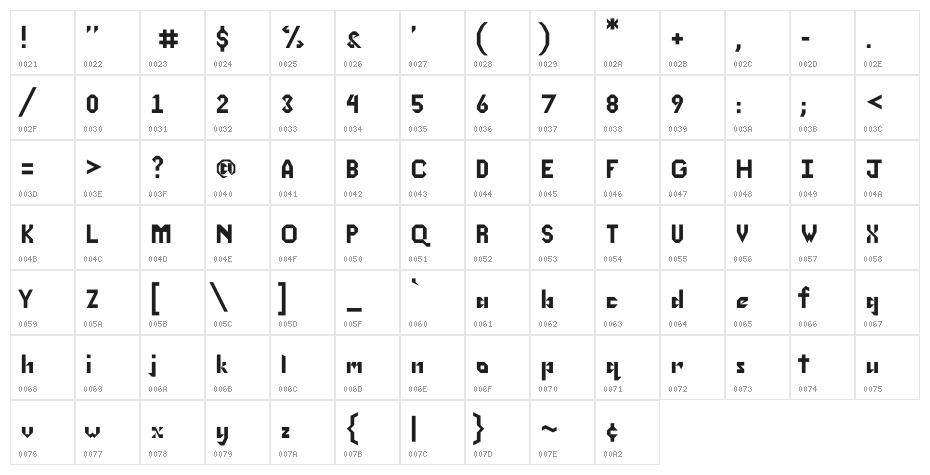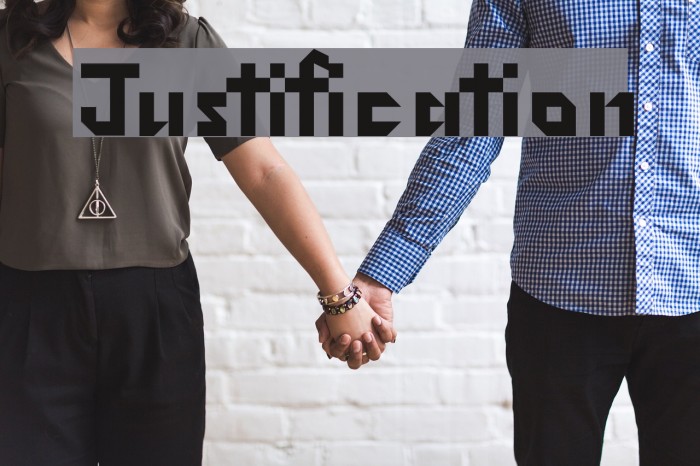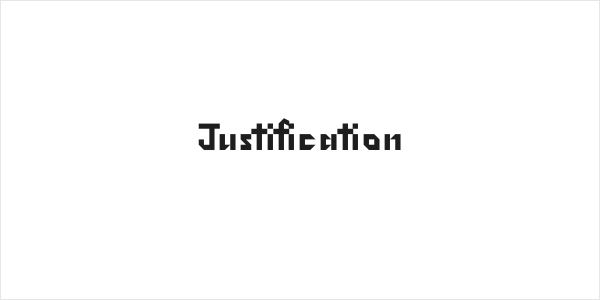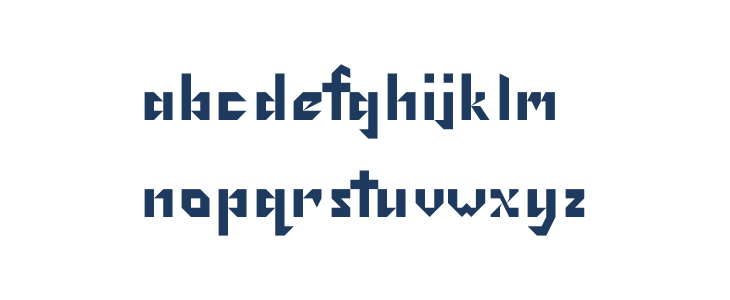
Justification Font
Justification Description
This font features a bold, geometric design with sharp angles and a modern aesthetic. The uppercase letters are particularly striking, with a blocky appearance that commands attention. The lowercase letters maintain the angular theme, offering a cohesive look across the alphabet. Numbers and special characters are crafted with the same boldness, ensuring consistency throughout. The font's unique style makes it suitable for projects that require a strong visual impact, such as branding or poster design. Its distinctiveness is enhanced by the uniformity in stroke thickness, contributing to a clean and polished appearance.
| Proposed Projects | Ideal for branding, poster design, and any project requiring a strong visual impact. |